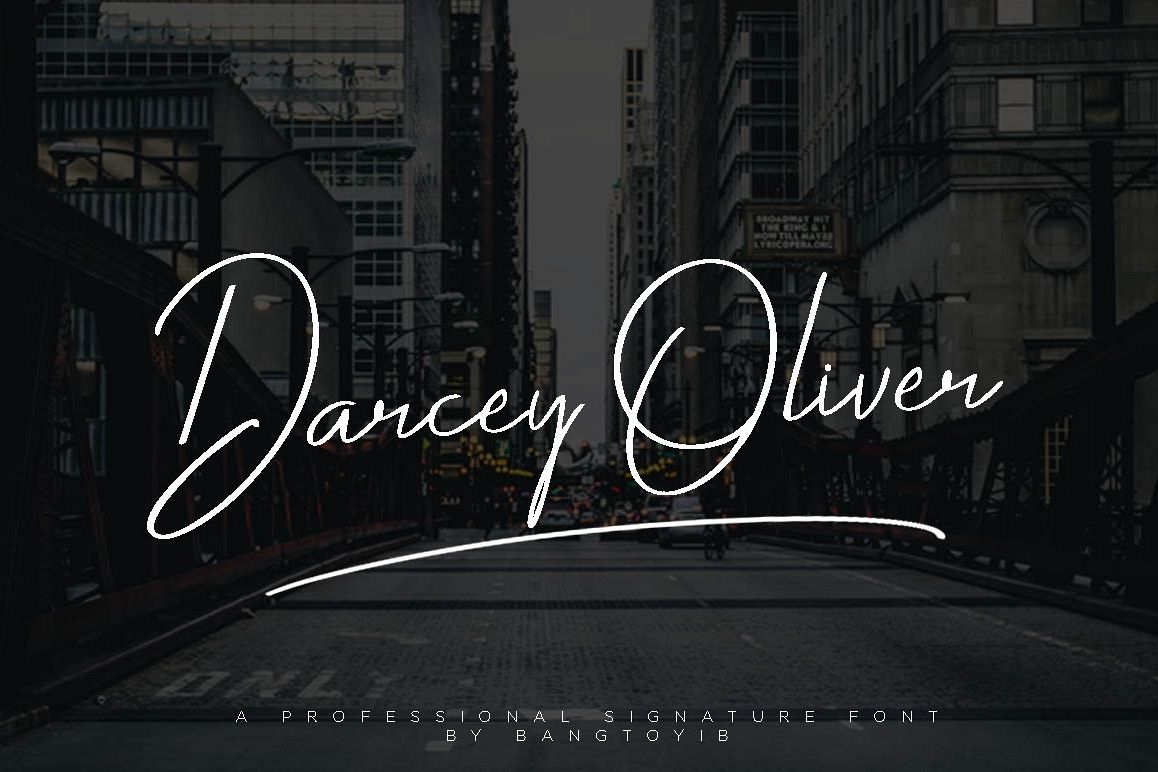
Darcey Oliver Signature Font
Darcey Oliver is a signature font, perfect for adding some romance and charm to your designs. This script functions most strongly as a display or headline font. suitable for logo, logotype, branding,wedding, fashion, label, book cover, t-shirt, instagram post, and other
• Basic Latin A-Z and a-z
• Symbols
• Opentype
• Swash
• PUA Encode
• glyphs (include Uppercase, Lowercase, Numerals & Punctuations, Stylistic Set, Ligature, Swashes)